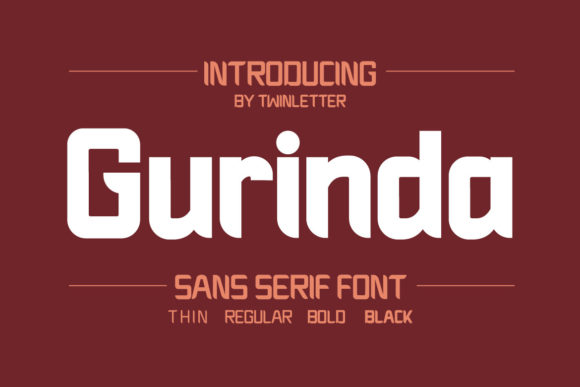
Behold Gurinda, the sans serif font that will revolutionize your creative world, transforming your projects into masterpieces of vintage charm and sophistication!
Visualize your designs adorned with Gurinda's elegant curves and sharp lines, evoking a sense of timeless allure that captures the hearts of your audience. This font is not just a collection of letters; it's an artistic journey that transports you to an era of elegance and grace.
With Gurinda, your words become more than just text; they become captivating stories, inviting readers to immerse themselves in the beauty of your creations. Its readability ensures that every message is conveyed with clarity and impact, leaving a lasting impression on your audience.
Gurinda is not just a font; it's a creative catalyst, unlocking your imagination and empowering you to craft designs that resonate with your audience on a deeper level. Its versatility extends from captivating headlines that command attention to body text that flows effortlessly, creating a harmonious reading experience.
Don't settle for ordinary fonts that blend into the background. Embrace Gurinda's uniqueness and make a statement with every project. Let your designs speak volumes, captivating your audience with a visual symphony that leaves them awe-inspired.